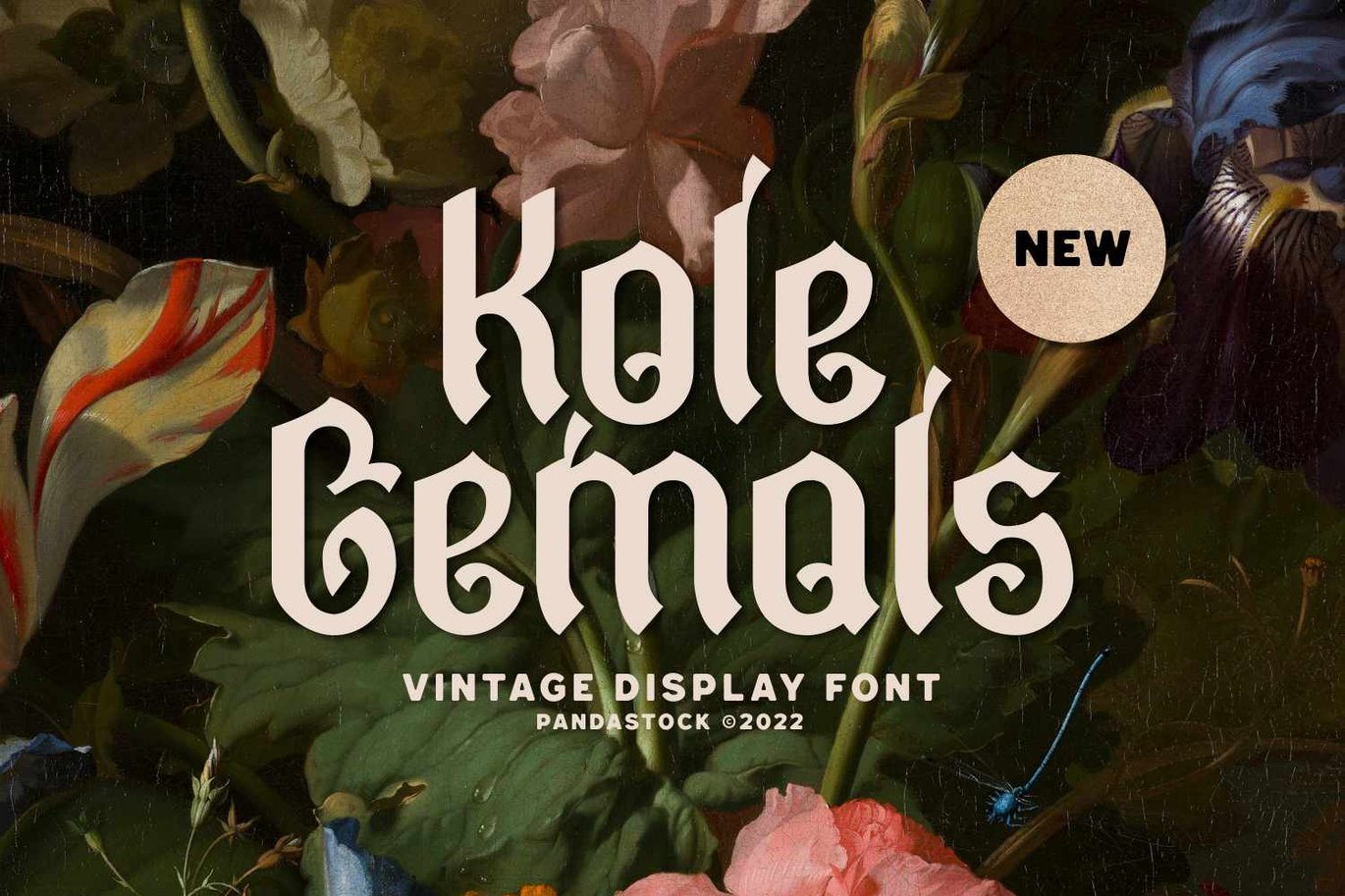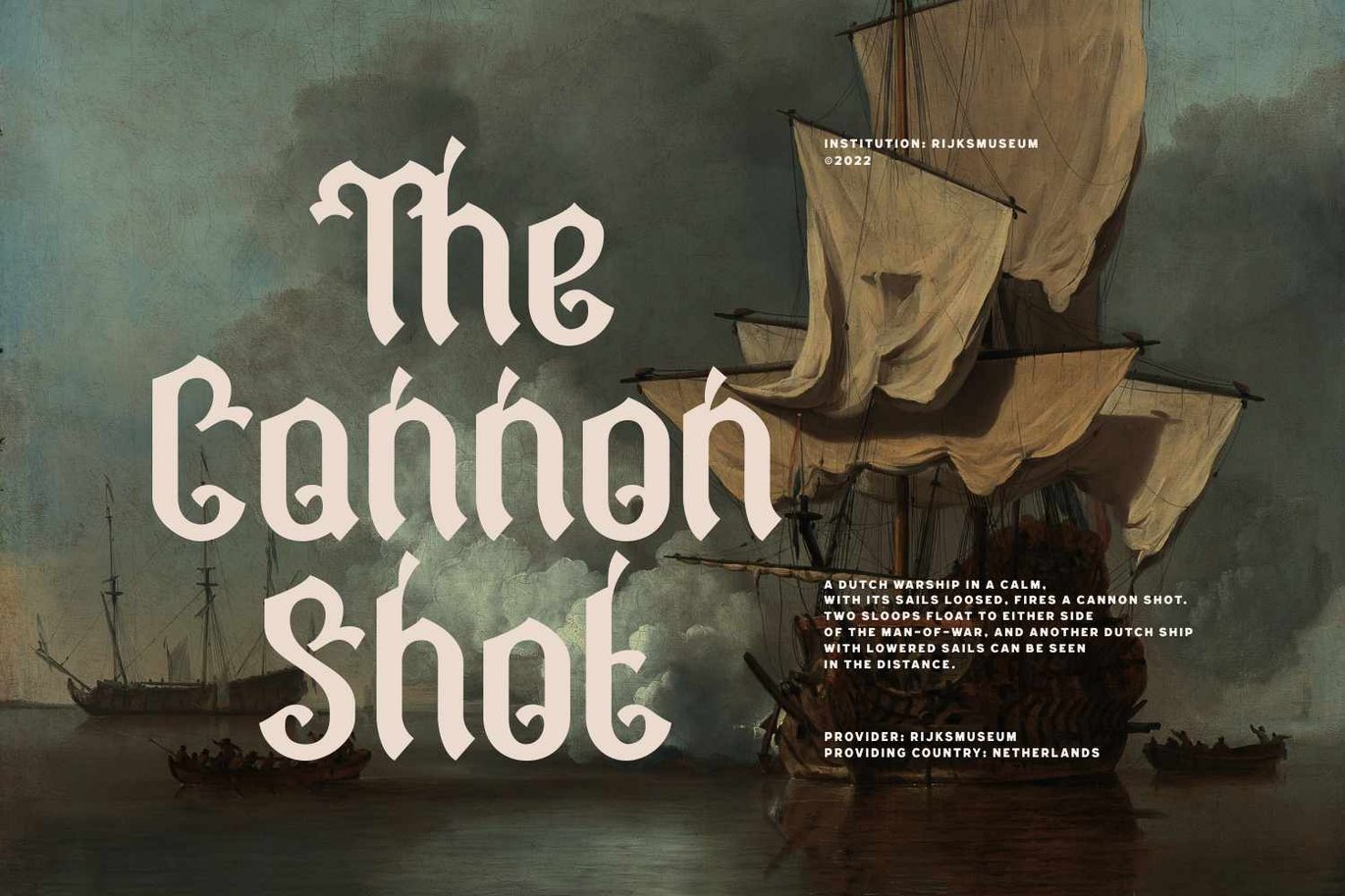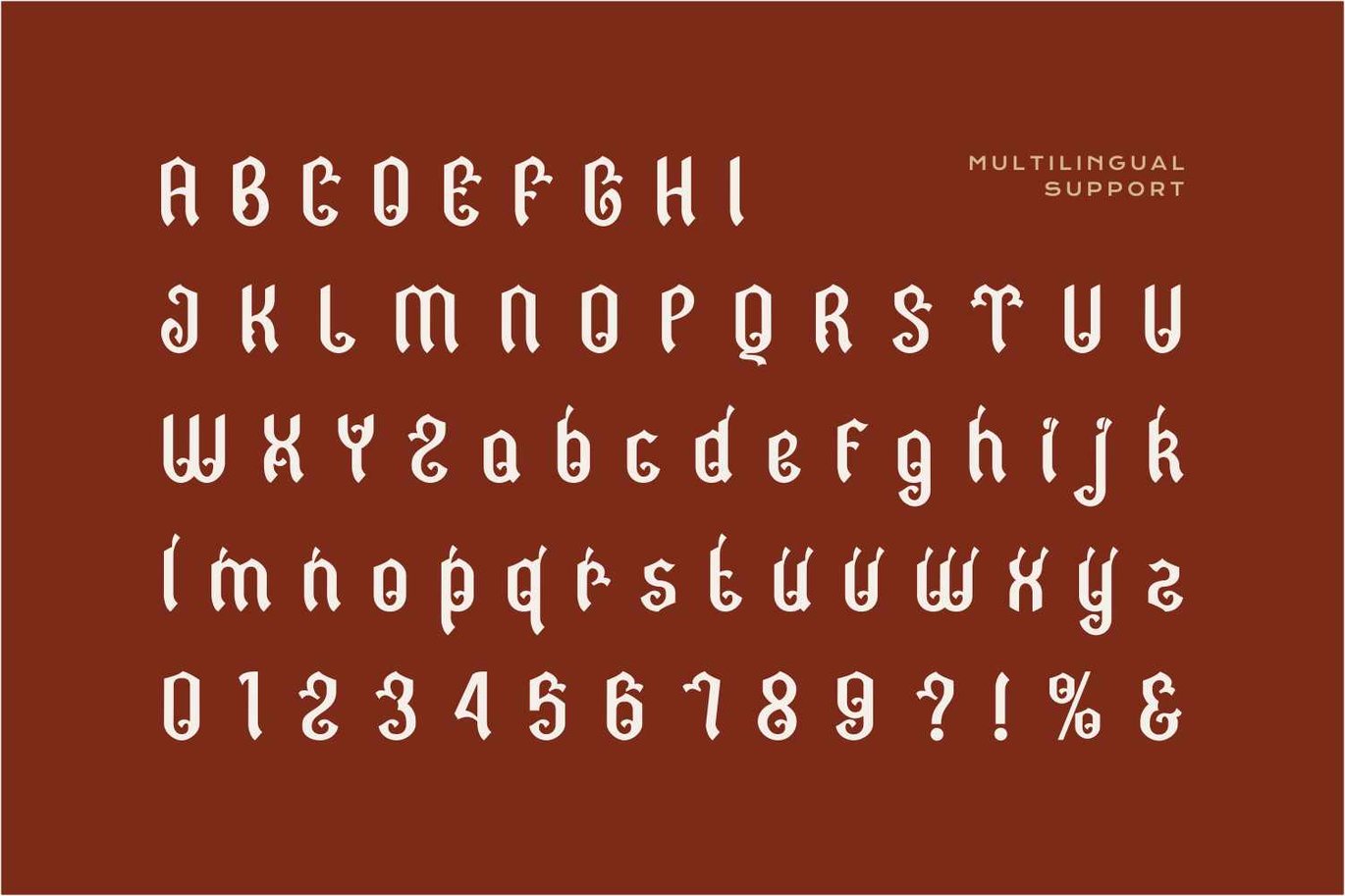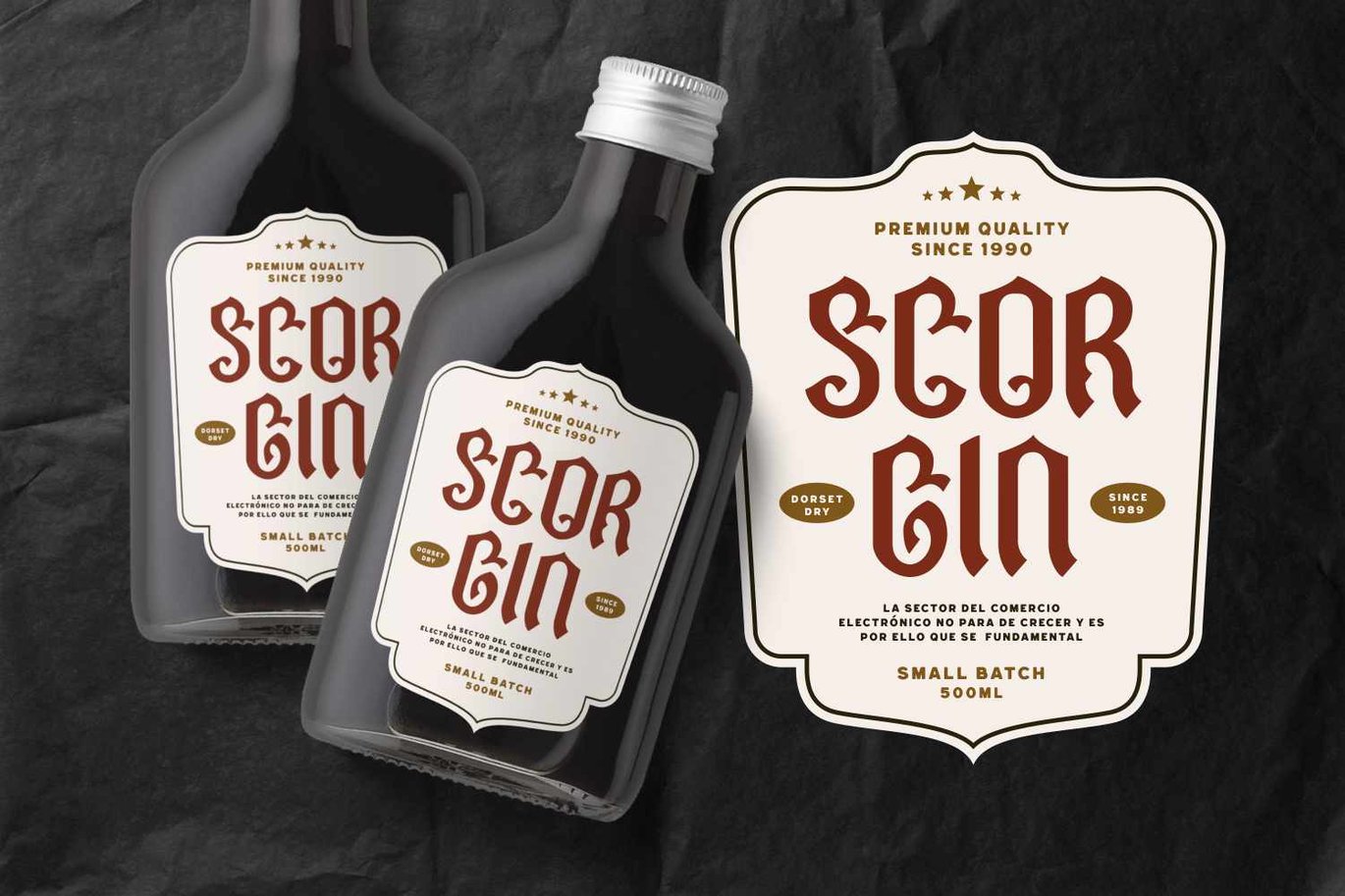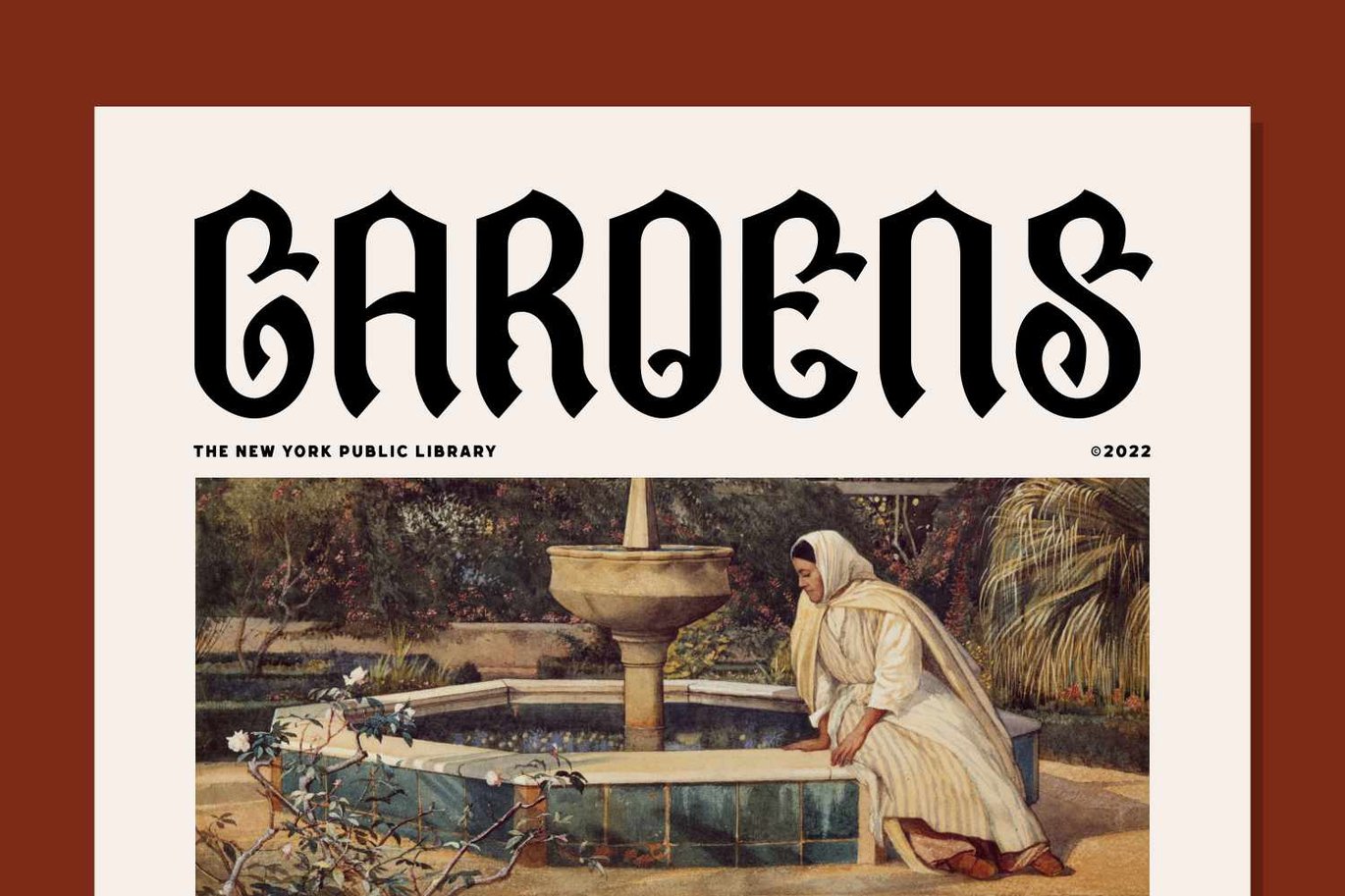
Kole Gemols – Medieval Display Font
Introducing “Kole Gemals,” is a vintage-inspired display typeface with a strong gothic and medieval aesthetic. It features sharp, angular serifs, tall ascenders, and ornate curves, giving the characters an old-world, almost calligraphic feel. The strokes are thick, with subtle variations in weight, adding a touch of elegance and sophistication to the overall design. Suited for elegance, and classic designs, particularly those with historical, fantasy, or artistic themes.
This font would be ideal for use in branding, posters, product packaging, product mockup, book covers, or any design seeking to evoke a sense of timelessness and heritage.